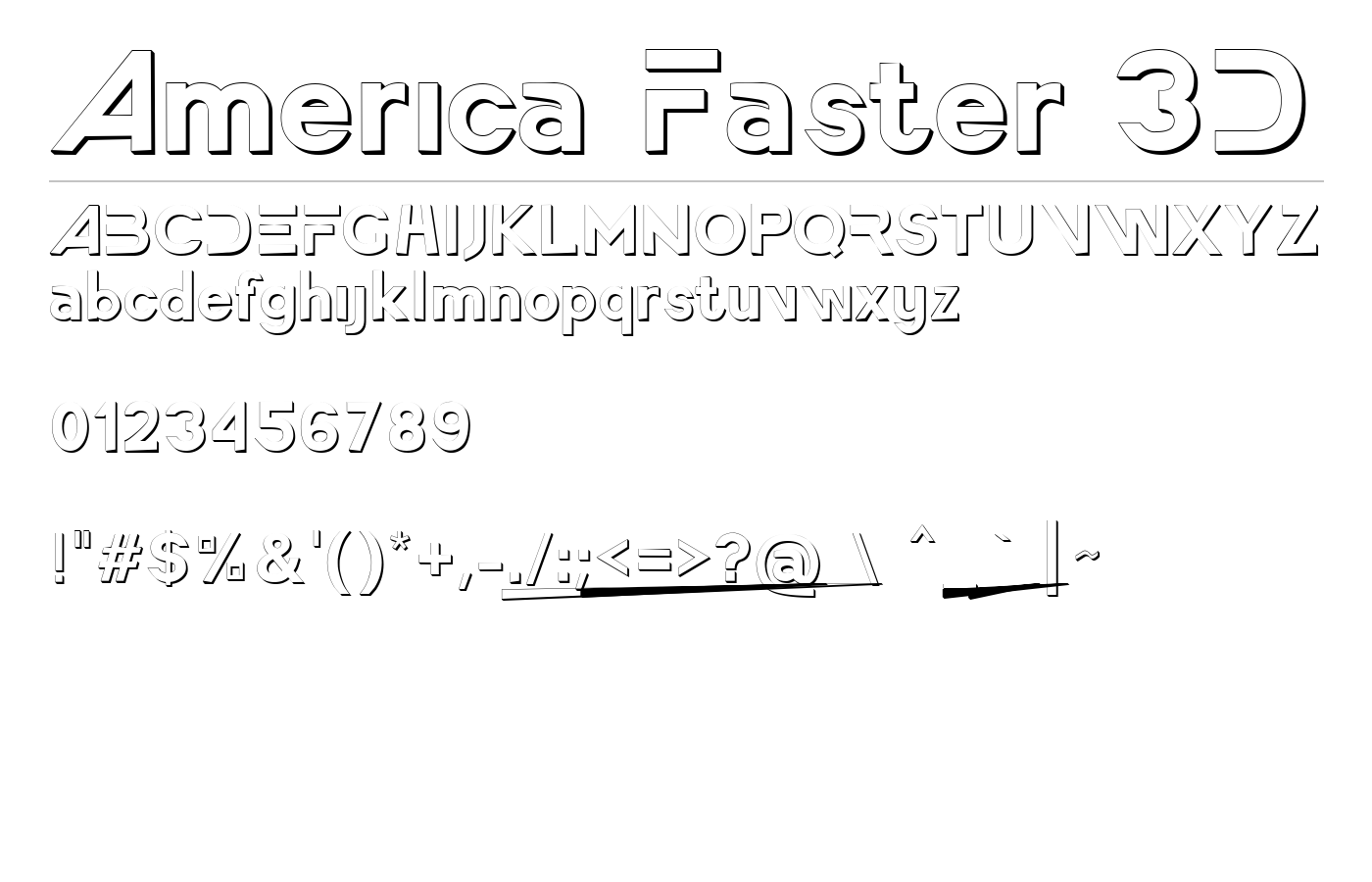
America Faster is a bold, geometric sans-serif font with a distinctive 3D shadow effect that gives it a dynamic and modern appearance. Its clean, straightforward letterforms combined with the playful depth make it an excellent choice for eye-catching headlines, logos, and branding projects that aim to convey energy and forward motion. This font works particularly well in contexts where a contemporary and impactful style is desired, such as technology, sports, or entertainment industries.
About America Faster Font